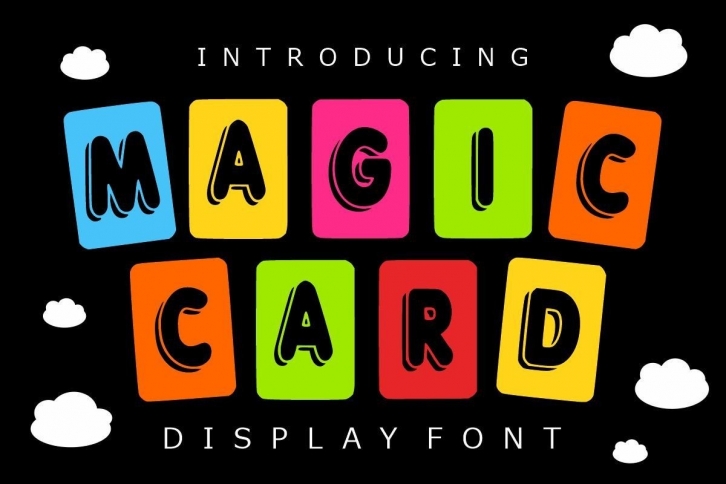
Magic Card is a cool and fun display font. Add it to each of your promotion, price tag, party invitation, gathering or pretty much any design that requires a touch of youth and joy.